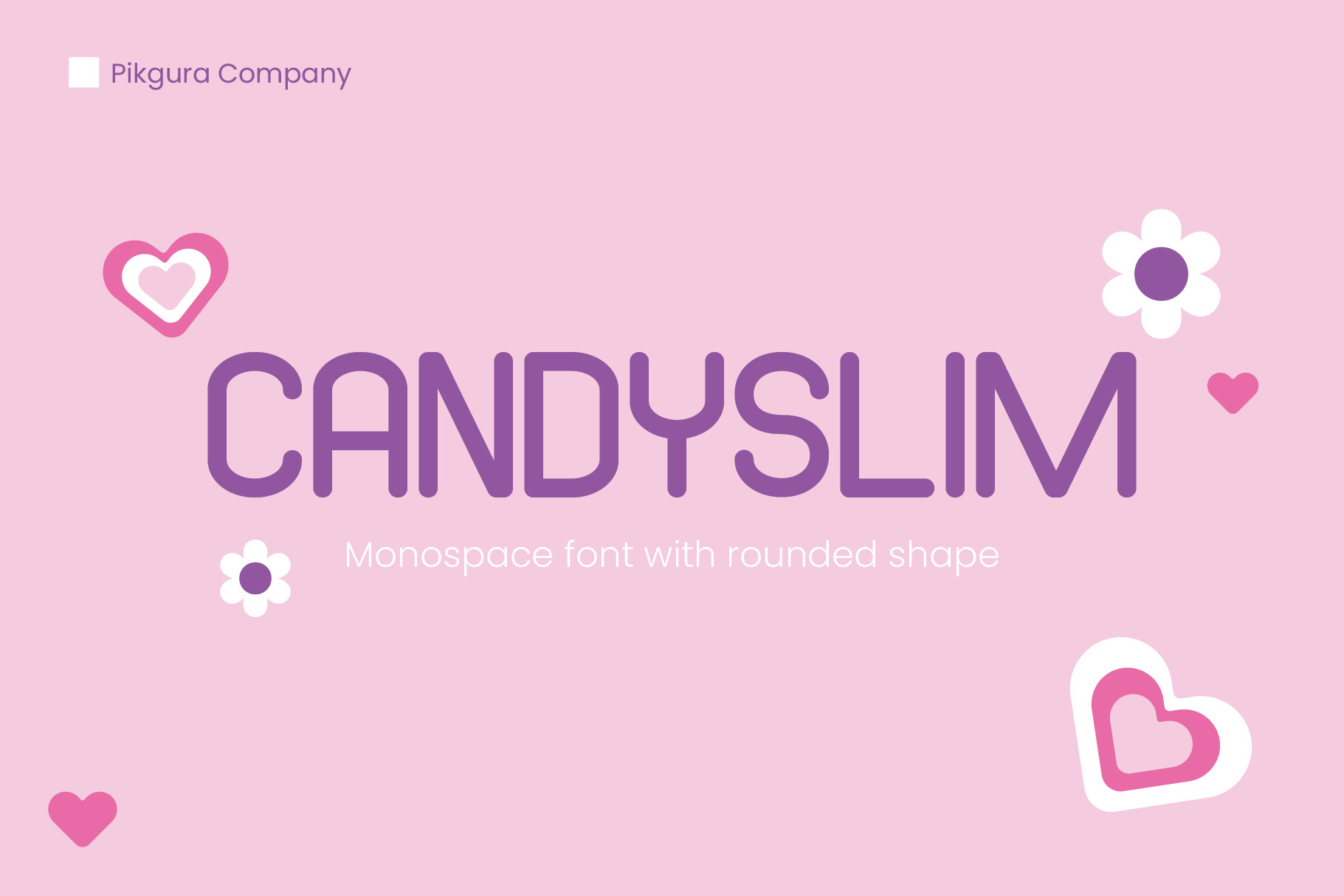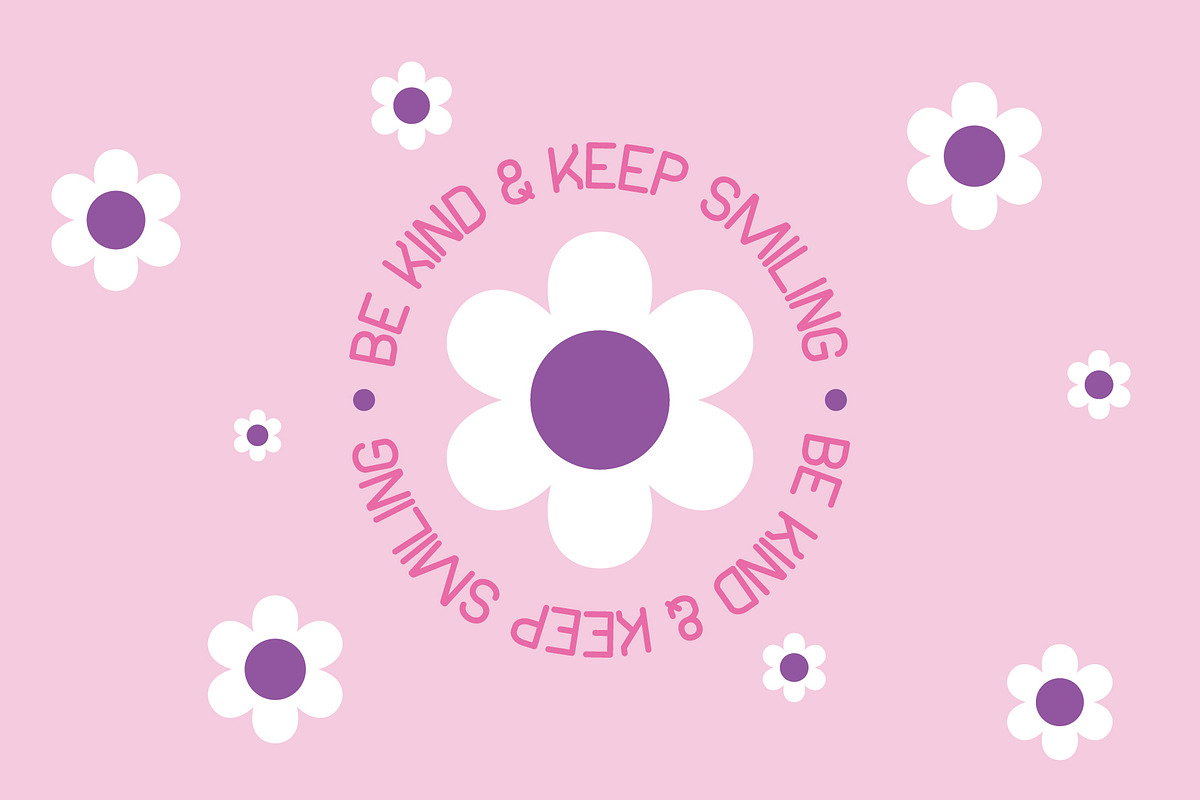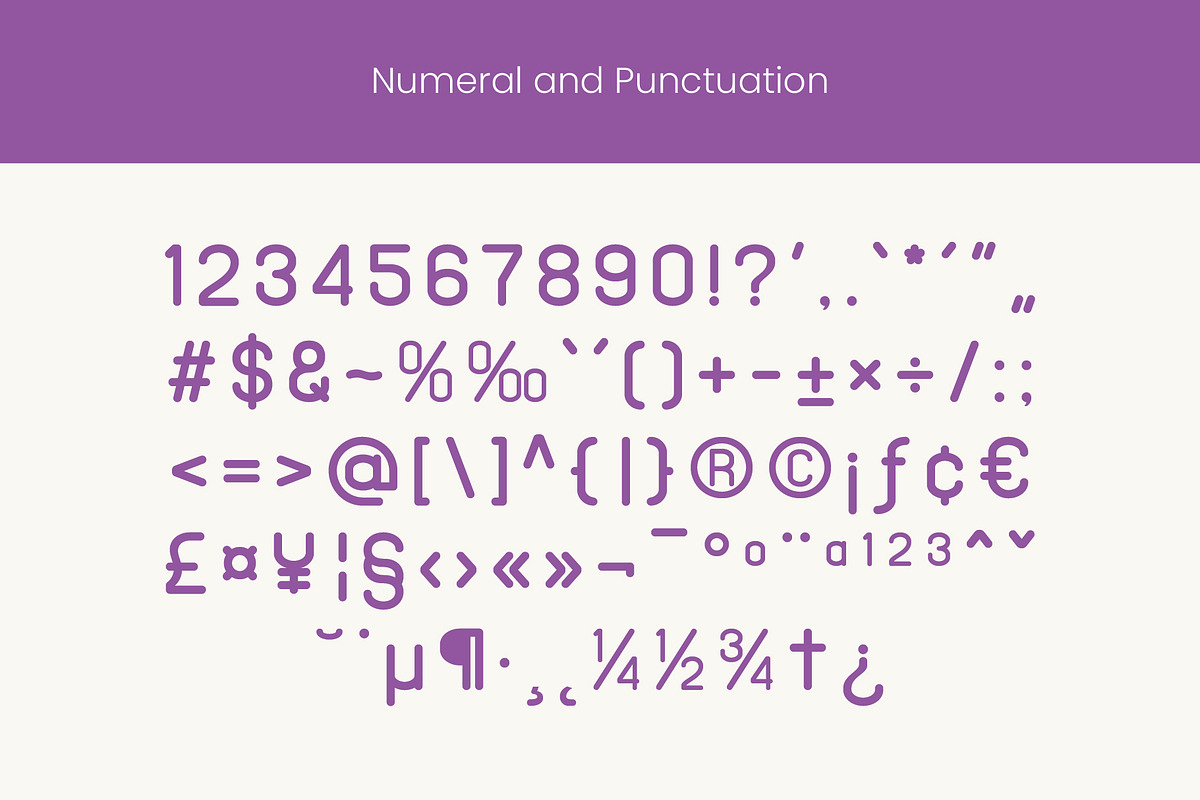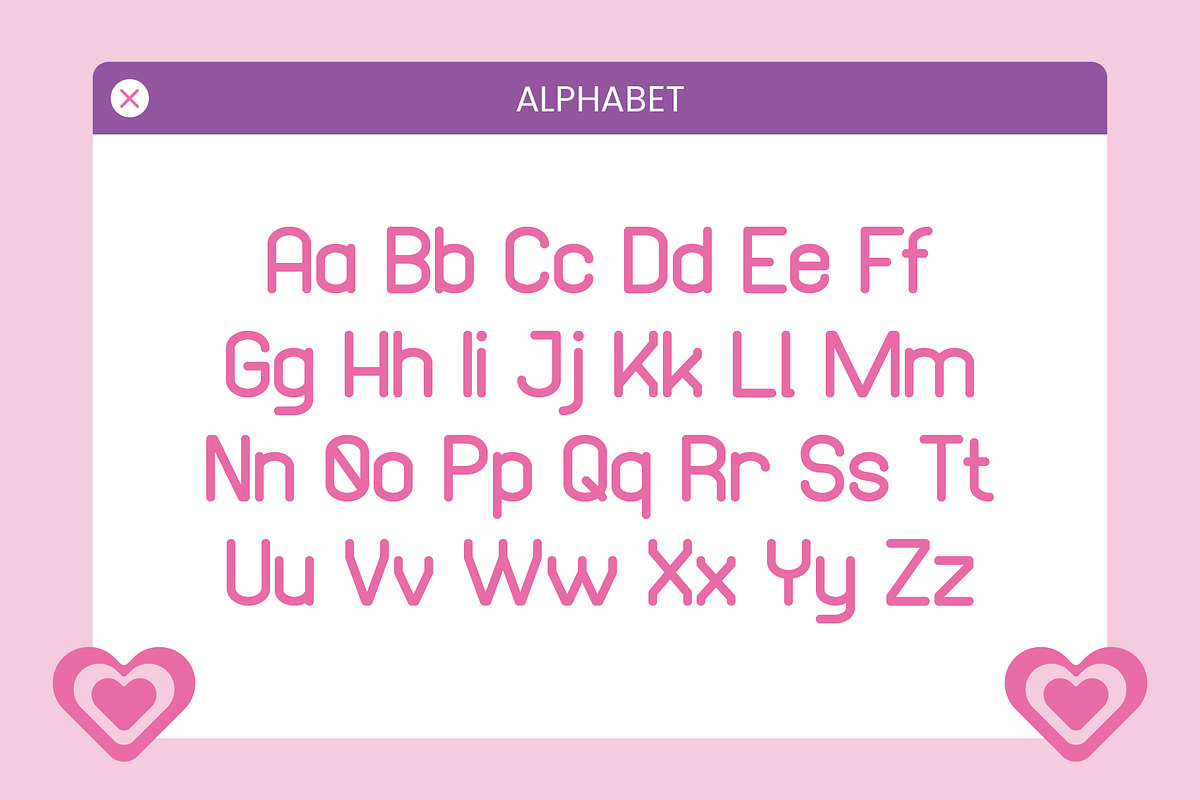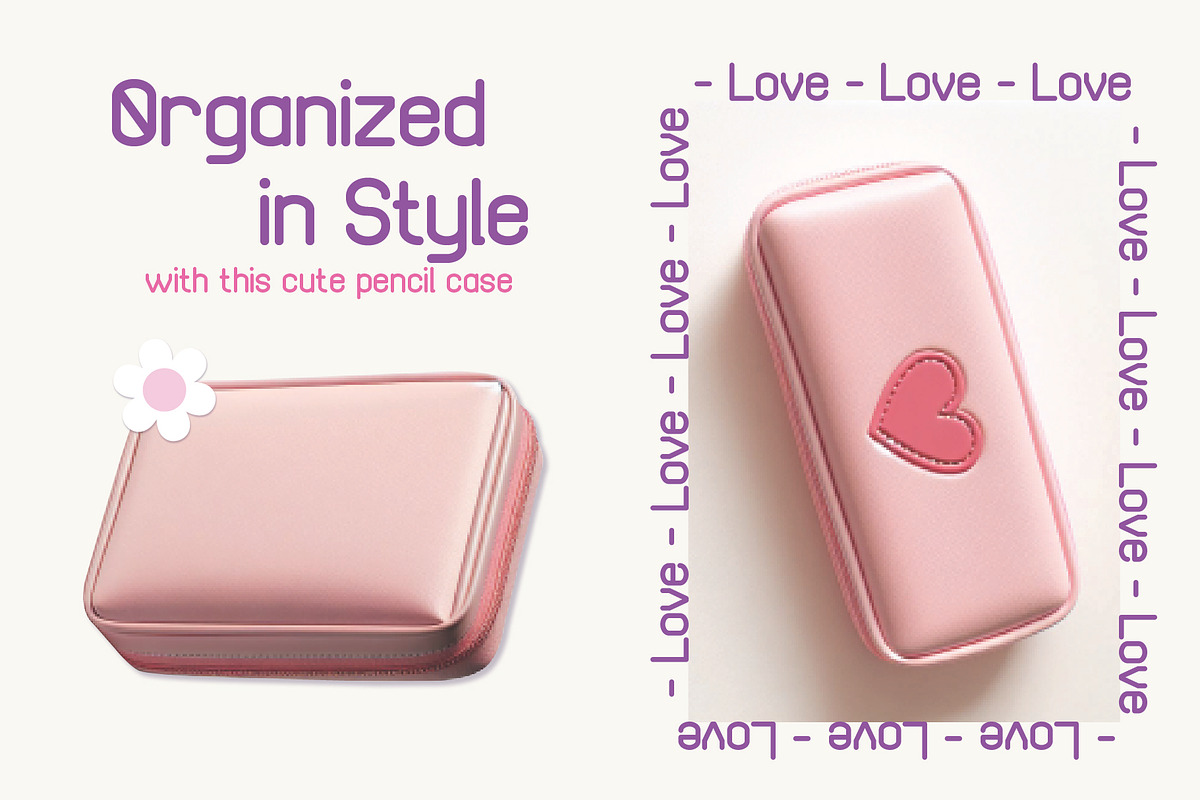
Candyslim - Monospace Typeface
Meet Candyslim, the playful monospace font with rounded shapes that adds a unique and fun touch to any design. Ideal for children’s products like storybooks, toy packaging, and event posters, Candyslim’s friendly style is perfect for capturing the attention and imagination of young audiences. This versatile font includes uppercase and lowercase letters, numbers, and punctuation, making it easy to use in a variety of projects.